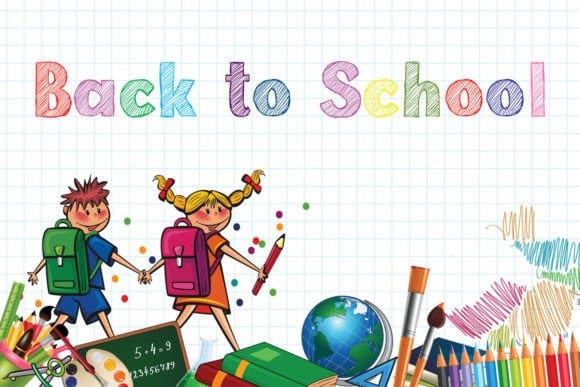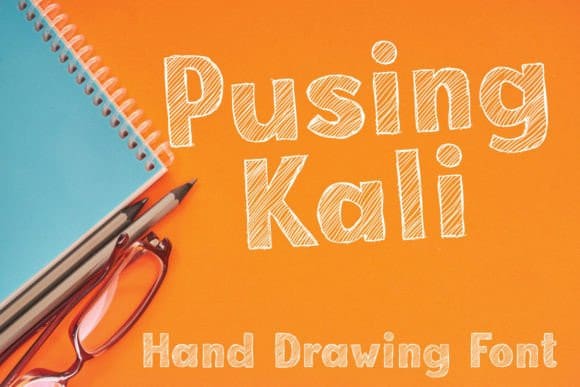
Pusing Kali Font
Pusing Kali Font, this font will be great for making your designs look fun and entertaining, for books, magazines, flyers, YouTube thumbnail titles, subtitles, etc.